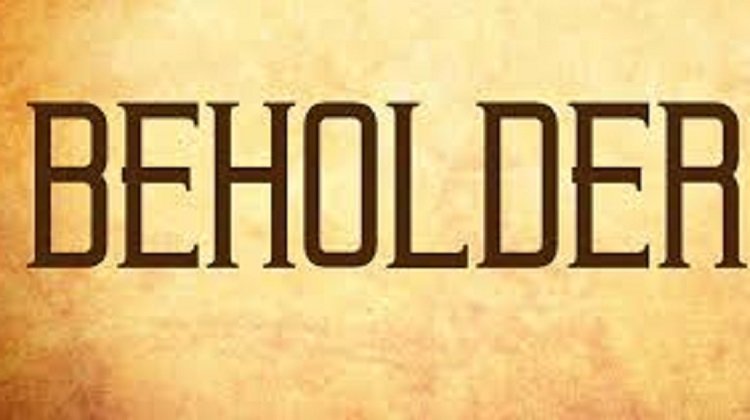
Beholder Handwritten Font
This is a modern handwritten font style. With this magnificent font, which is completely hand-drawn, you will give your work an extraordinary design.
Introducing Beholder Font! Beholder Handwritten Font is a new modern & stylish handwritten font. I’ts Perfect for logo,branding, invitation, tittle, wedding designs, social media posts, advertisements, product packaging, product designs, label, photography, watermark, special event,magazine,web design,etc.